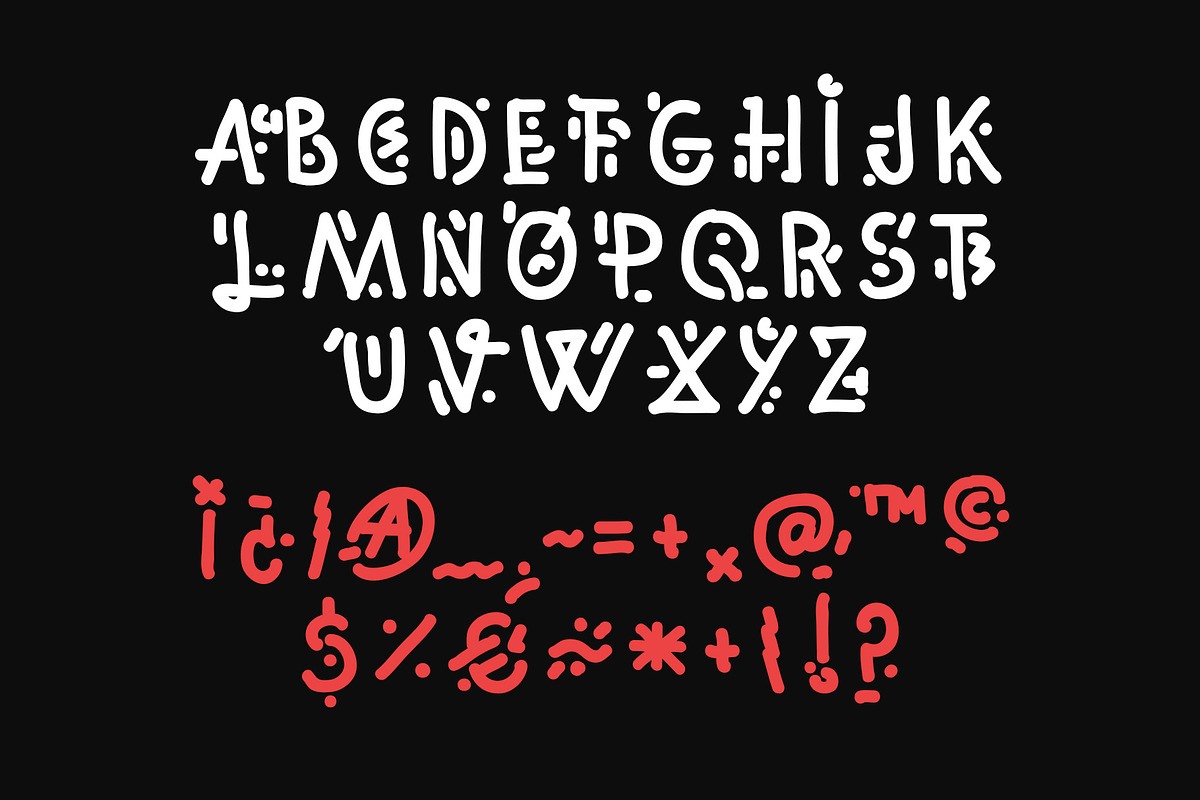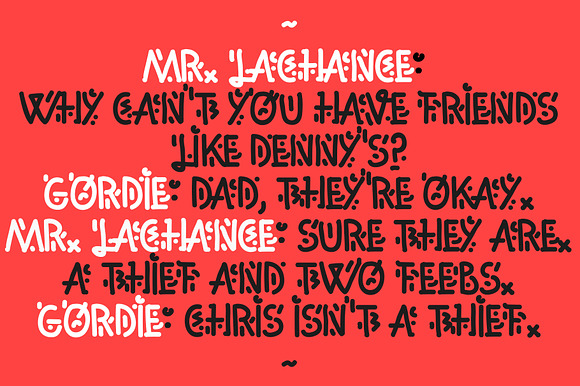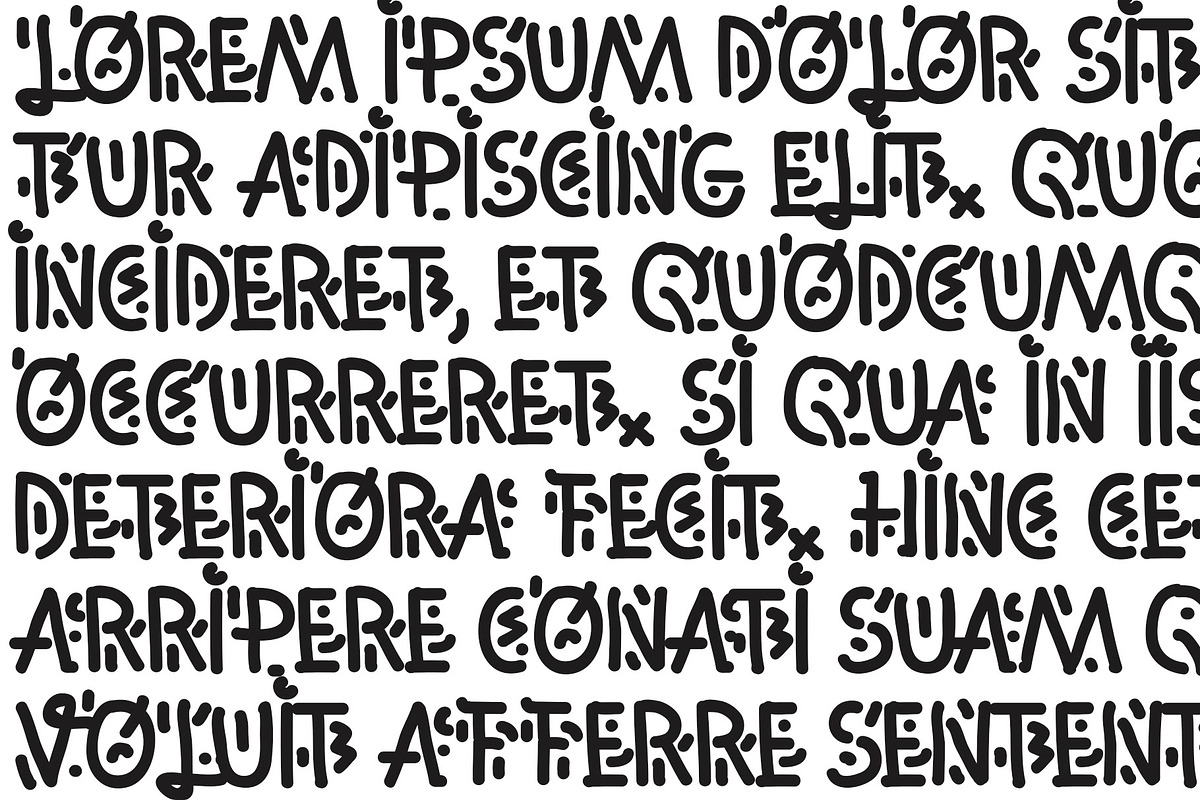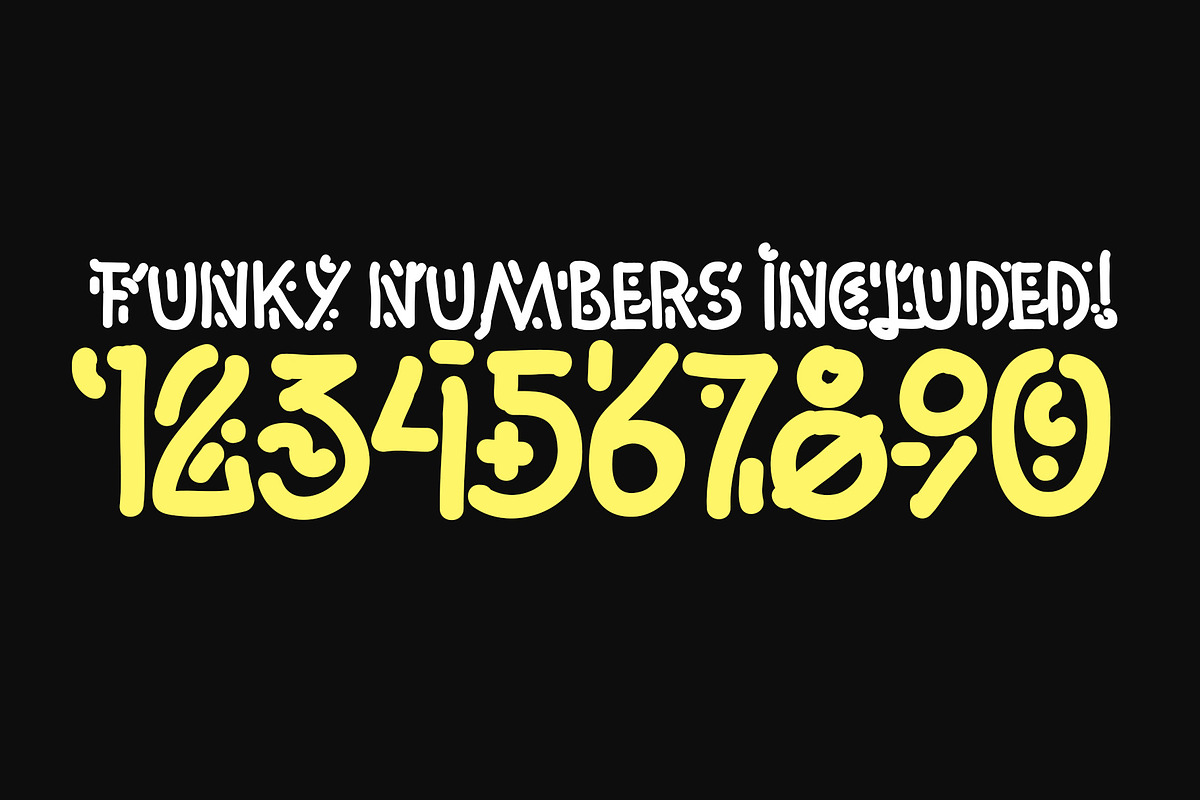
Wadeye - Font
Wadeye is a font inspired by Keith Haring's work and Australian aboriginal art. My main purpose was to have fun and experiment so, I hope you'll enjoy it! I'll appreciate any feedback.
The font contains only capital letters but it has a lot of extra funky glyphs. Some of them hidden on the lowercase characters!
- The font contains only capital letters but it has a lot of extra funky glyphs.
- Some of them hidden on the lowercase characters!